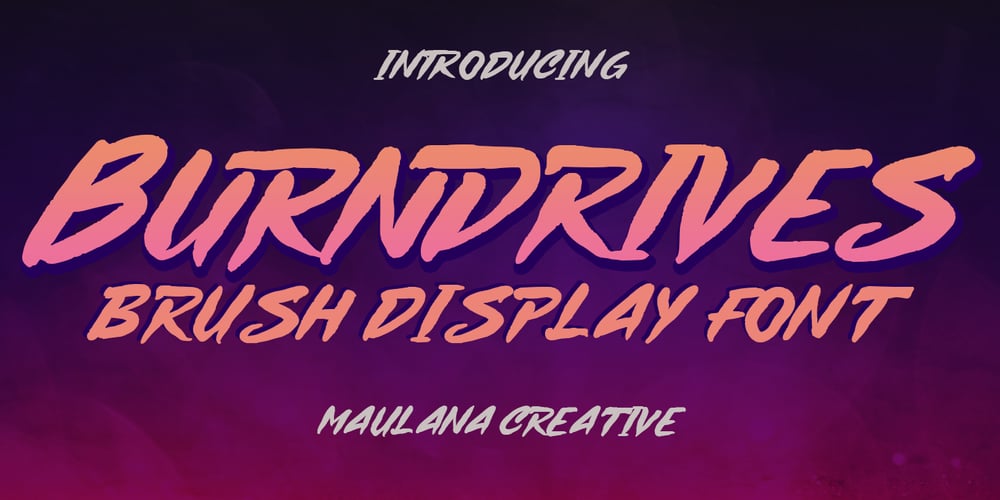
MC Burndrives Font Family was designed by Gilang Maulana and published by Maulana Creative. MC Burndrives contains 1 styles and family package options. Burndrives is a slanted handwritten display brush font. With bold rough brush stroke, fun character with a bit of ligatures. To give you an extra creative work. Burndrives font support multilingual more than 100+ language. This font is good for logo design, Social media, Movie Titles, Books Titles, a short text even a long text letter and good for your secondary text font with sans or serif. Make a stunning work with Burndrives font. Cheers, Maulana Creative